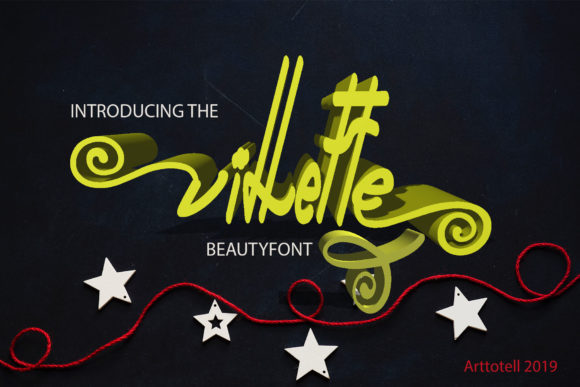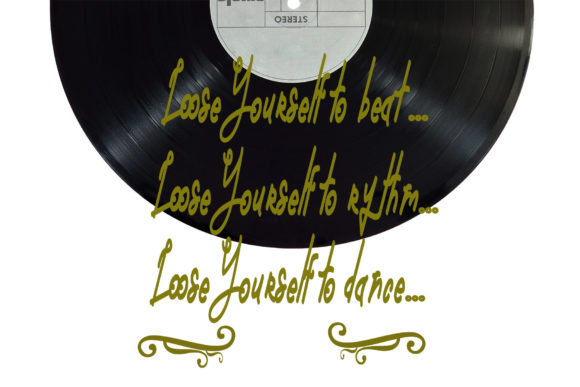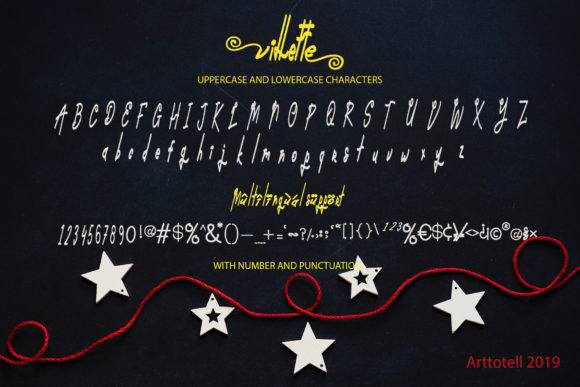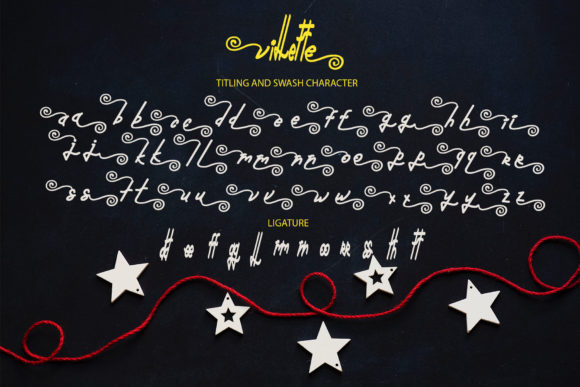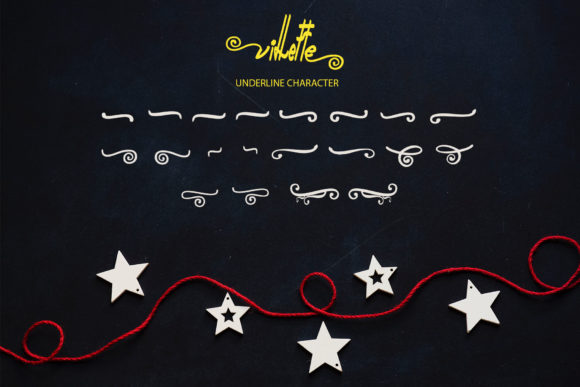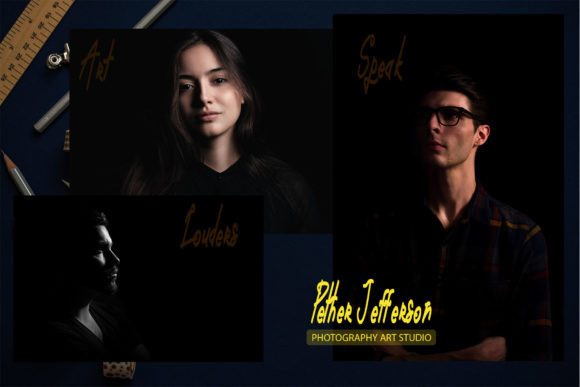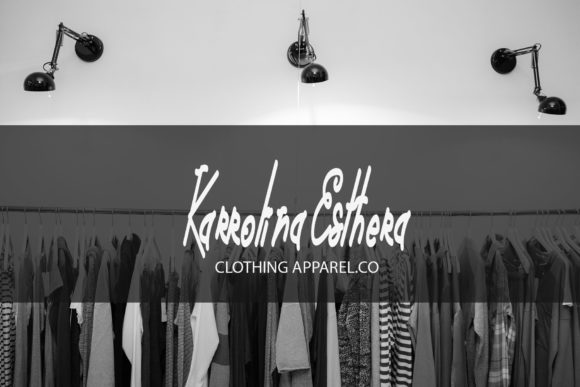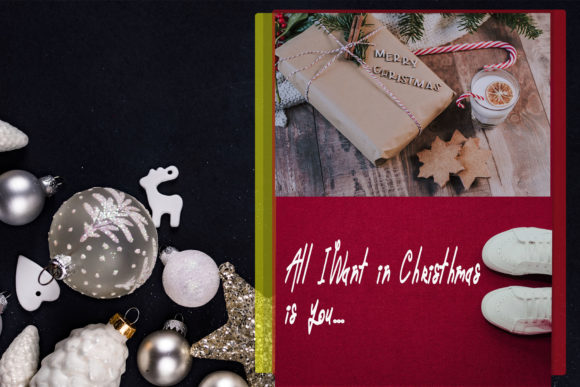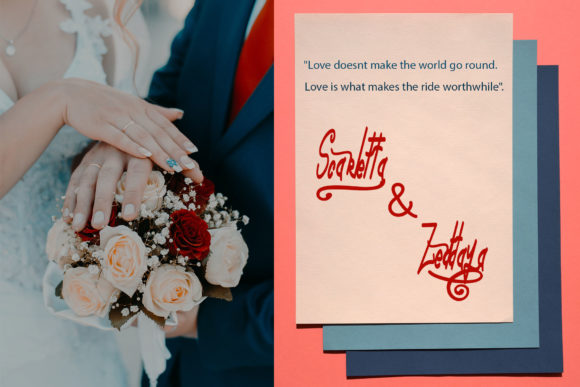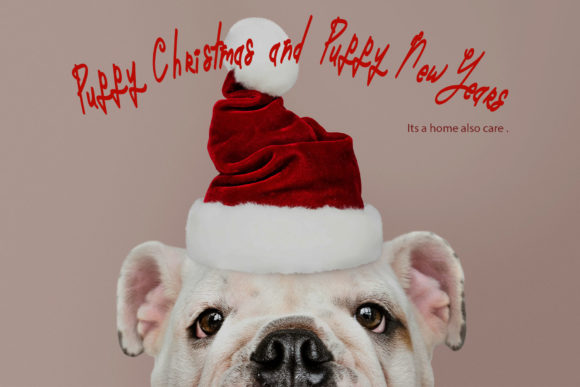
Villette Font
About Villette Font
Villette is a fun and cool script font with a unique charm and swirly swashes. It’s the perfect font for adding a cool twist to any design!